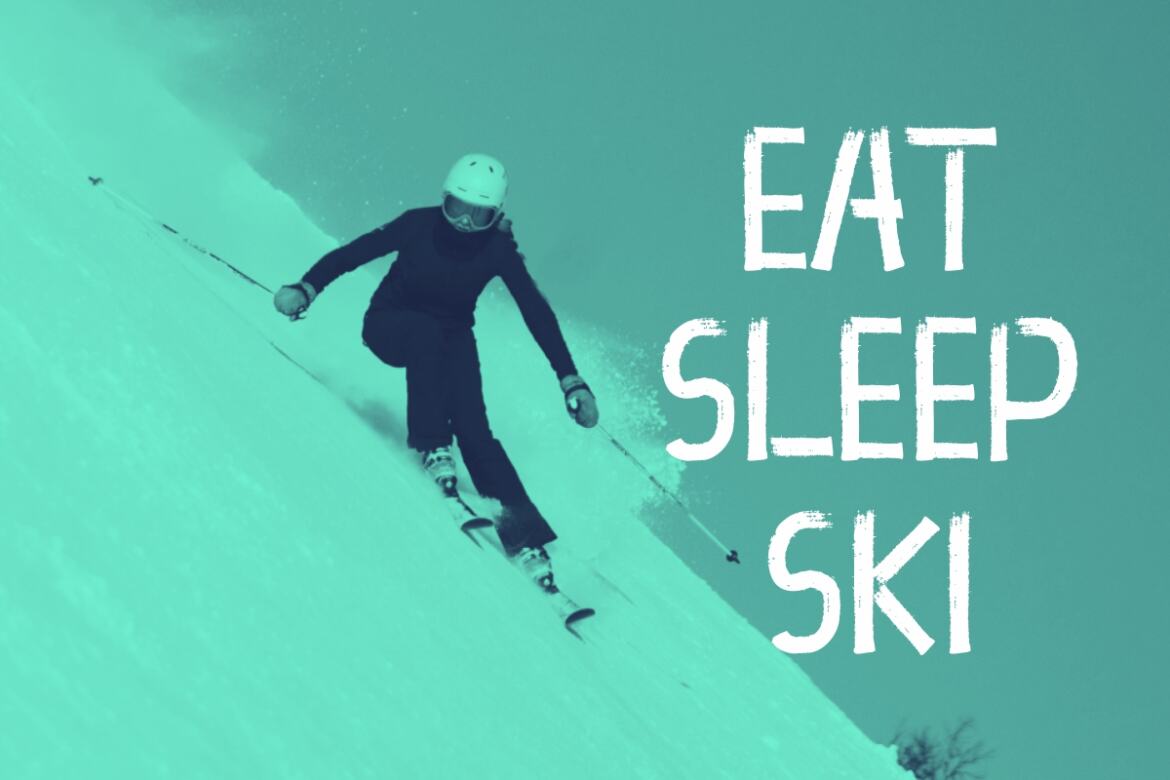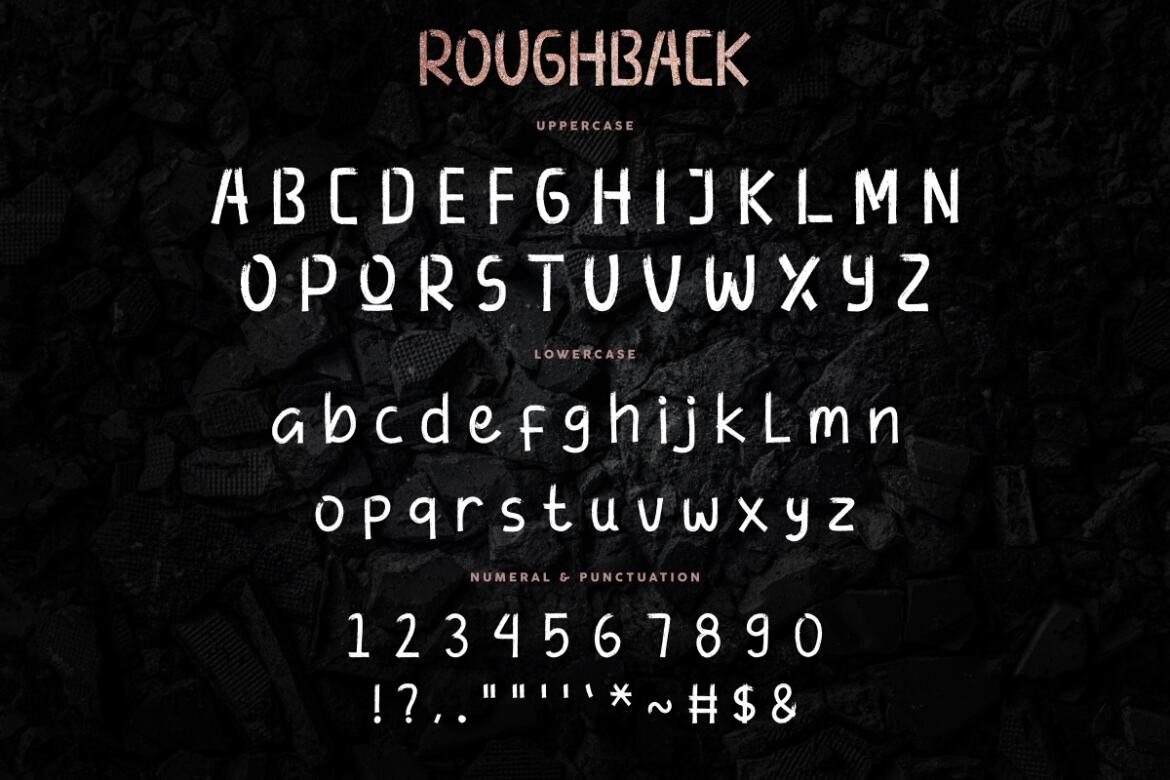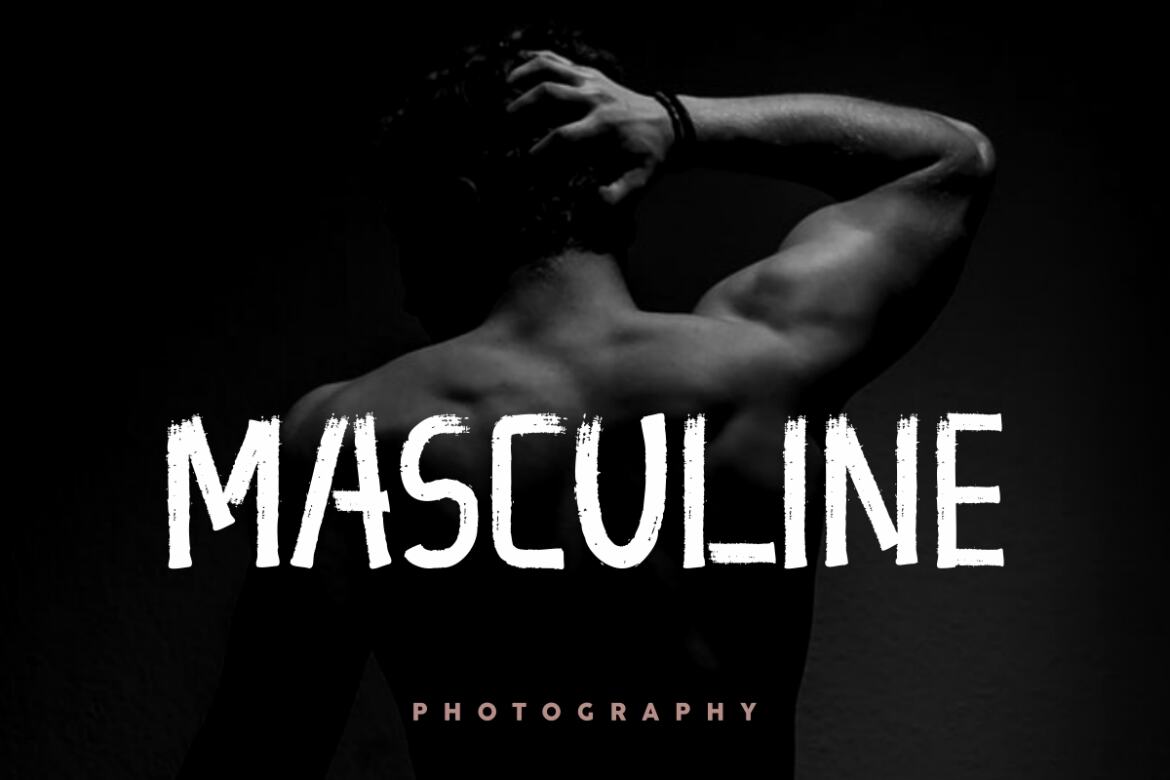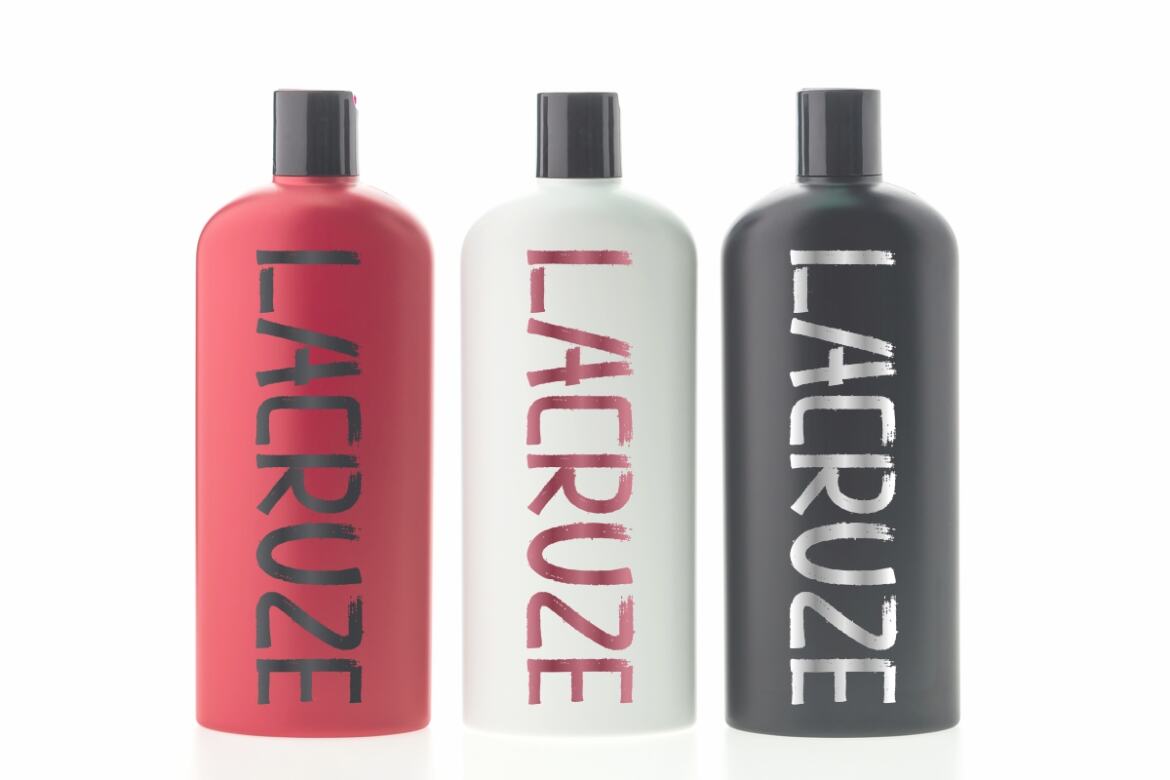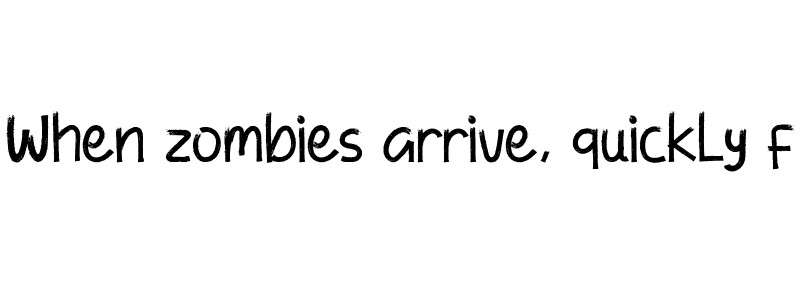
Roughback - FREE Rough Font
Roughback
Roughback Brush Font is an exclusive rough brush script typeface with unique brush style. This font has a stunning characters set, perfectly managed with well spaced and kerning. The theme style of this font will horror, movie, games, vintage and classic brush style. This is a grunge brush display font, handcrafted from our Studio here in, Indonesia. The artists/designers of this tyeface is Ali and Suci. Roughback Brush Font will be great for any projects including : branding, logo, stationery, business card, signage, flyer, brochure etc. Almost all industries will be match for this typeface: events, music video, makeup artist, travel, promotions, musician, magician etc Here’s what you’ll get on the zip pack :